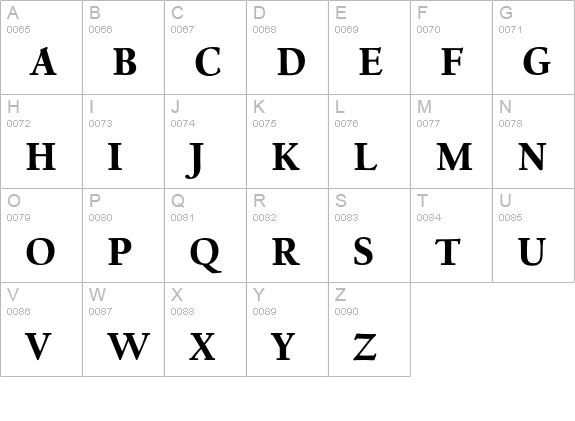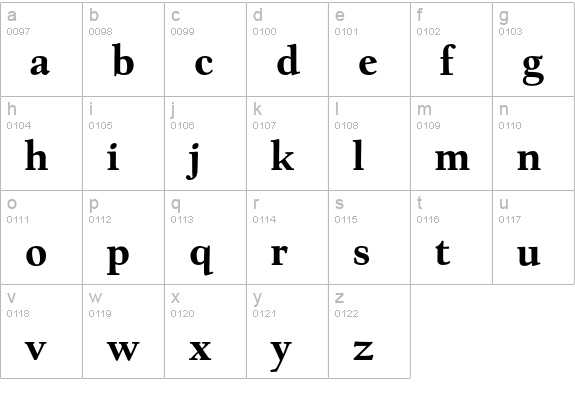
CalifornianText-Bold Font Details
CalifornianText-Bold is a strong, high-contrast variant in the CalifornianText typeface family \xE2\x80\x94 well suited to headlines, attention-grabbing titles, and strong calls-to-action.
CalifornianText-Bold font is a sleek and modern typeface that exudes confidence and style. With its bold and striking design, this font is perfect for making a statement in your projects. The strong and distinctive characters of CalifornianText-Bold font make it ideal for headlines, titles, and branding materials. What sets CalifornianText-Bold font apart is not only its visual appeal but also the sense of sophistication and elegance it brings to any design. Whether you're working on a poster, website, or logo, this font will instantly elevate the look and feel of your project. Best of all, CalifornianText-Bold font is available for free download at FontsMarket.com. This means you can easily add this versatile and eye-catching font to your collection without any cost. Don't miss out on the opportunity to enhance your designs with the timeless appeal of CalifornianText-Bold font.